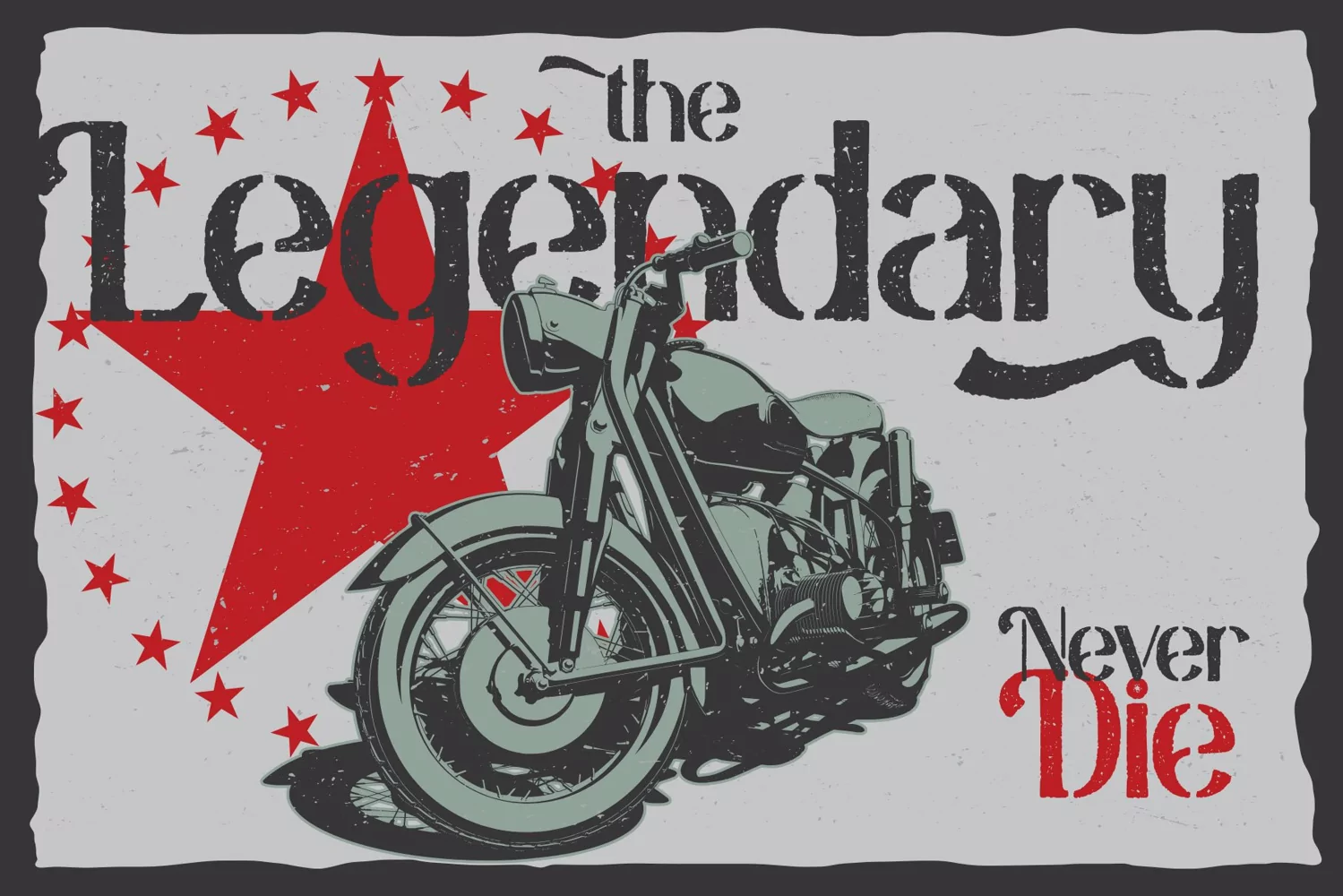
Raceryouth
**Raceryouth Font**
This pair was inspired by the retro motorbike poster design that i saw on some coffee shop, It was crafted by hand specially to add natural handmade feeling in its brand identity than i make it clean with pentool.
**Opentype features**
Raceryouth font has 196 character set included
Raceryouth Font is very good looking in logo, labels, product packaging, invitations, advertising and others.